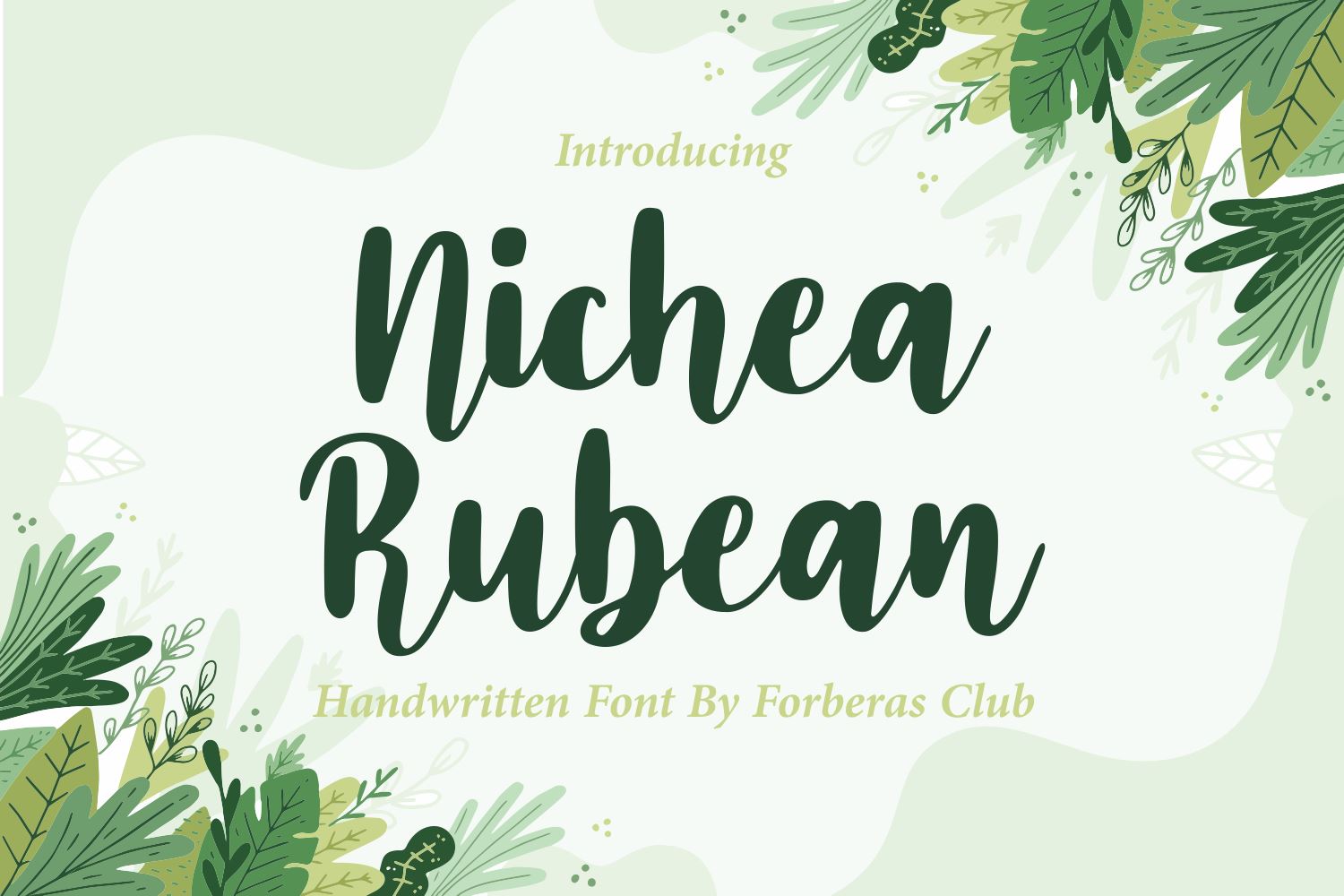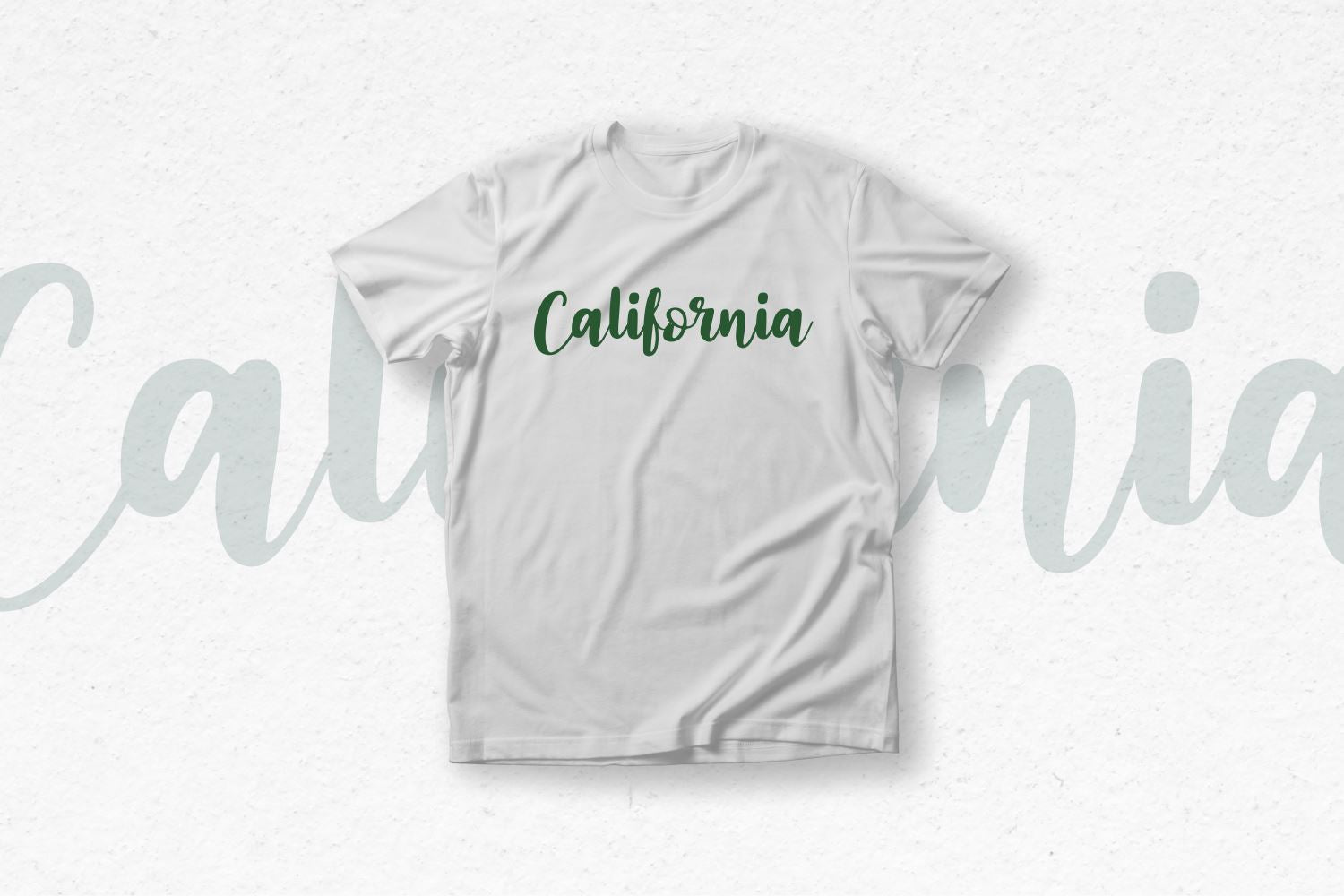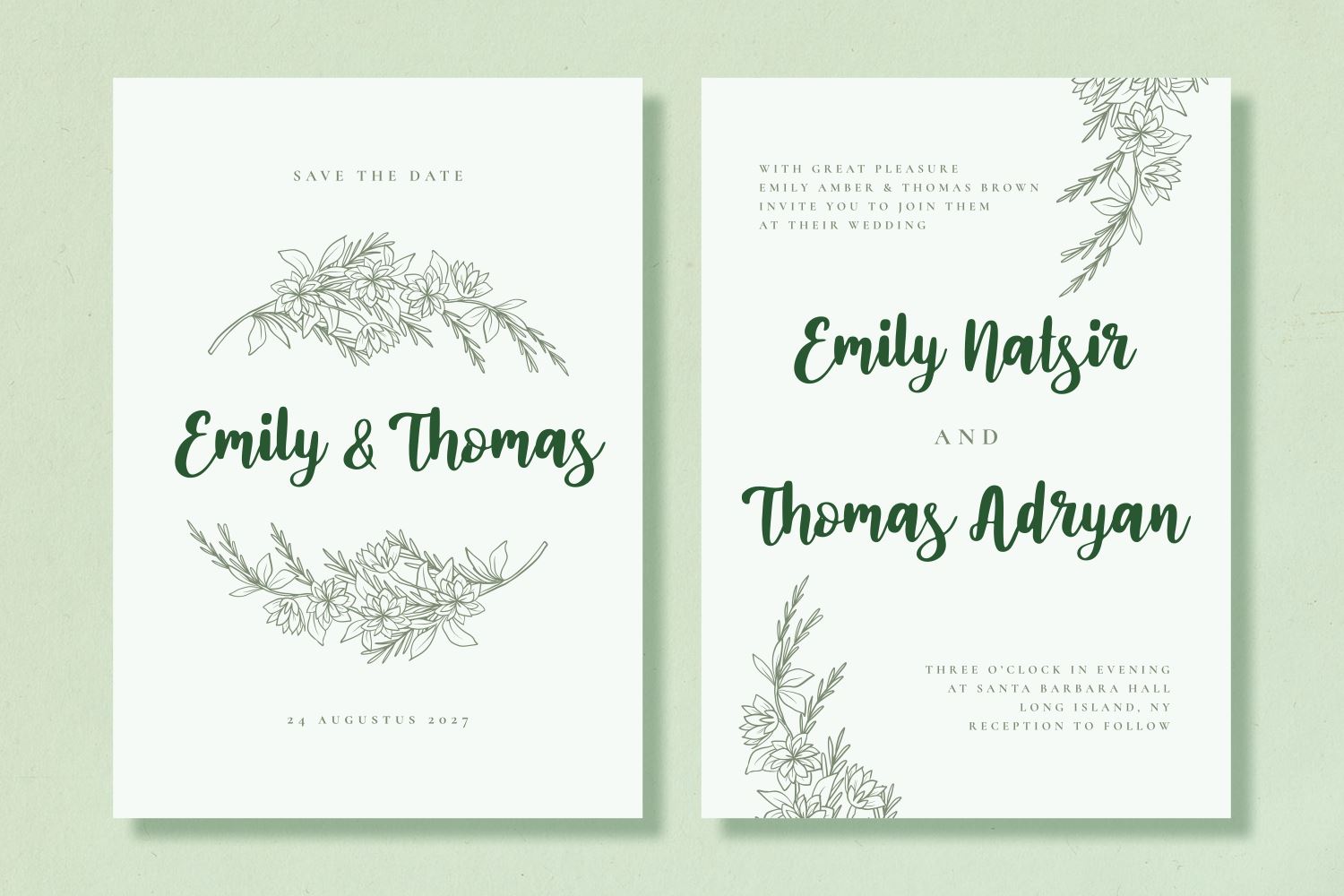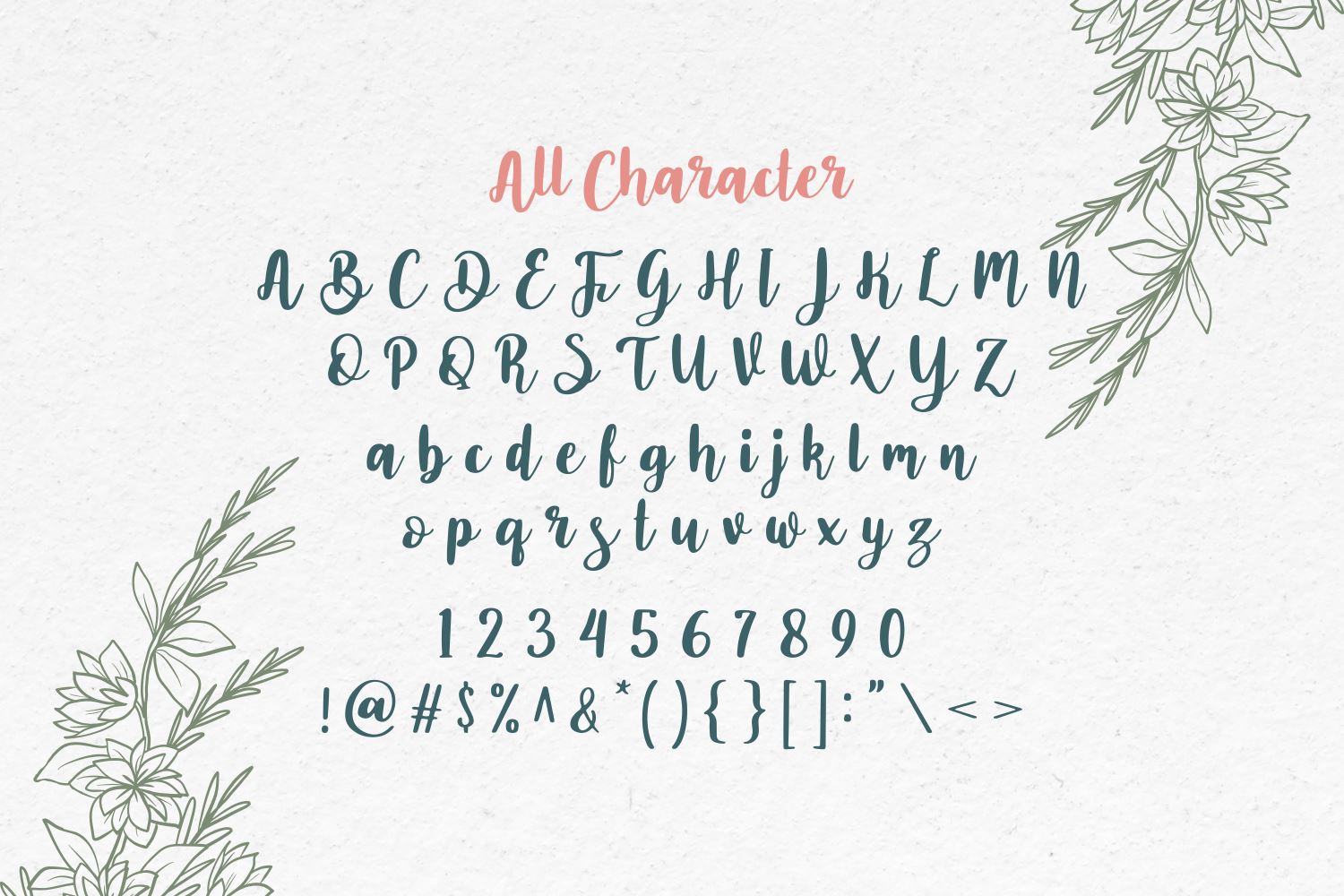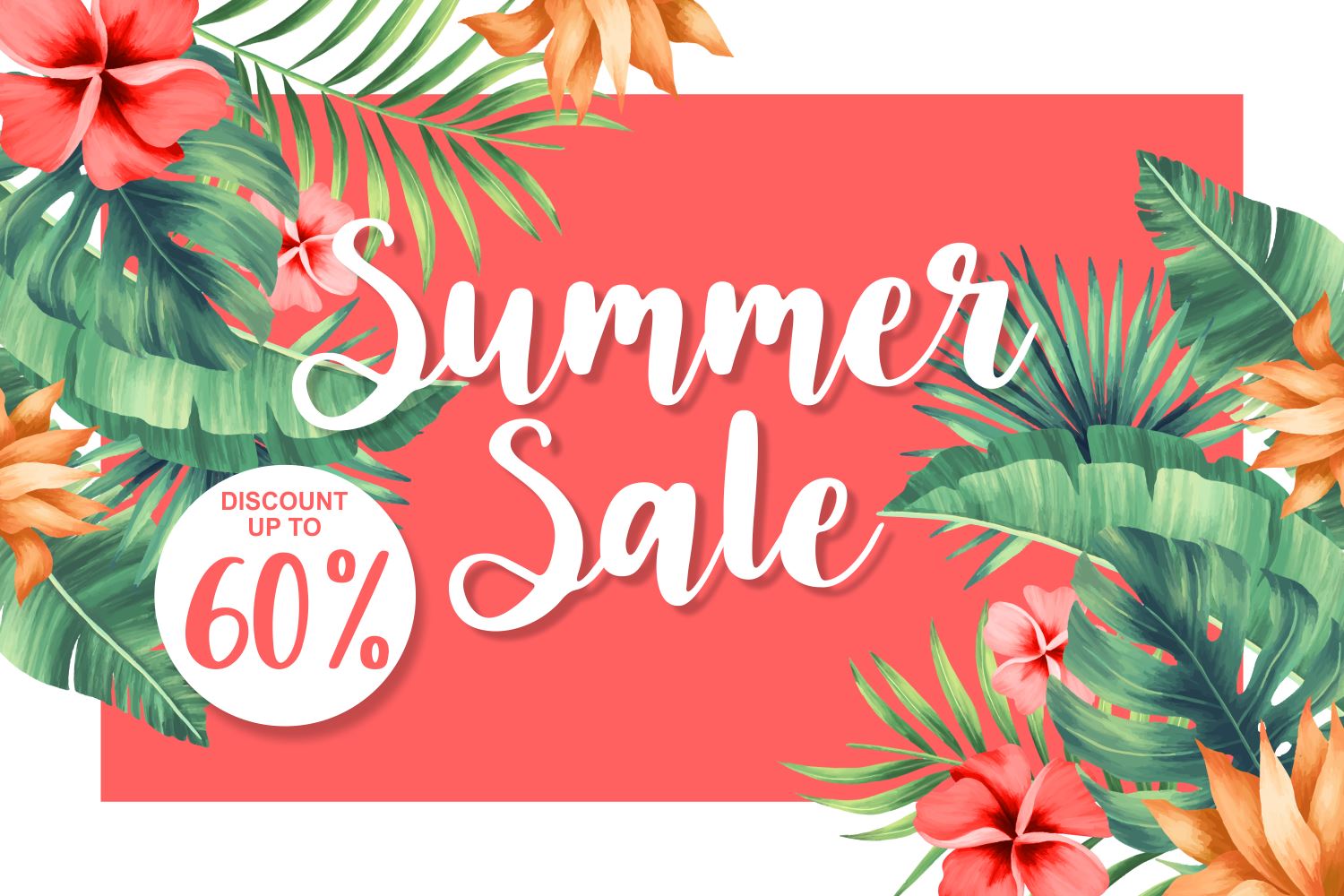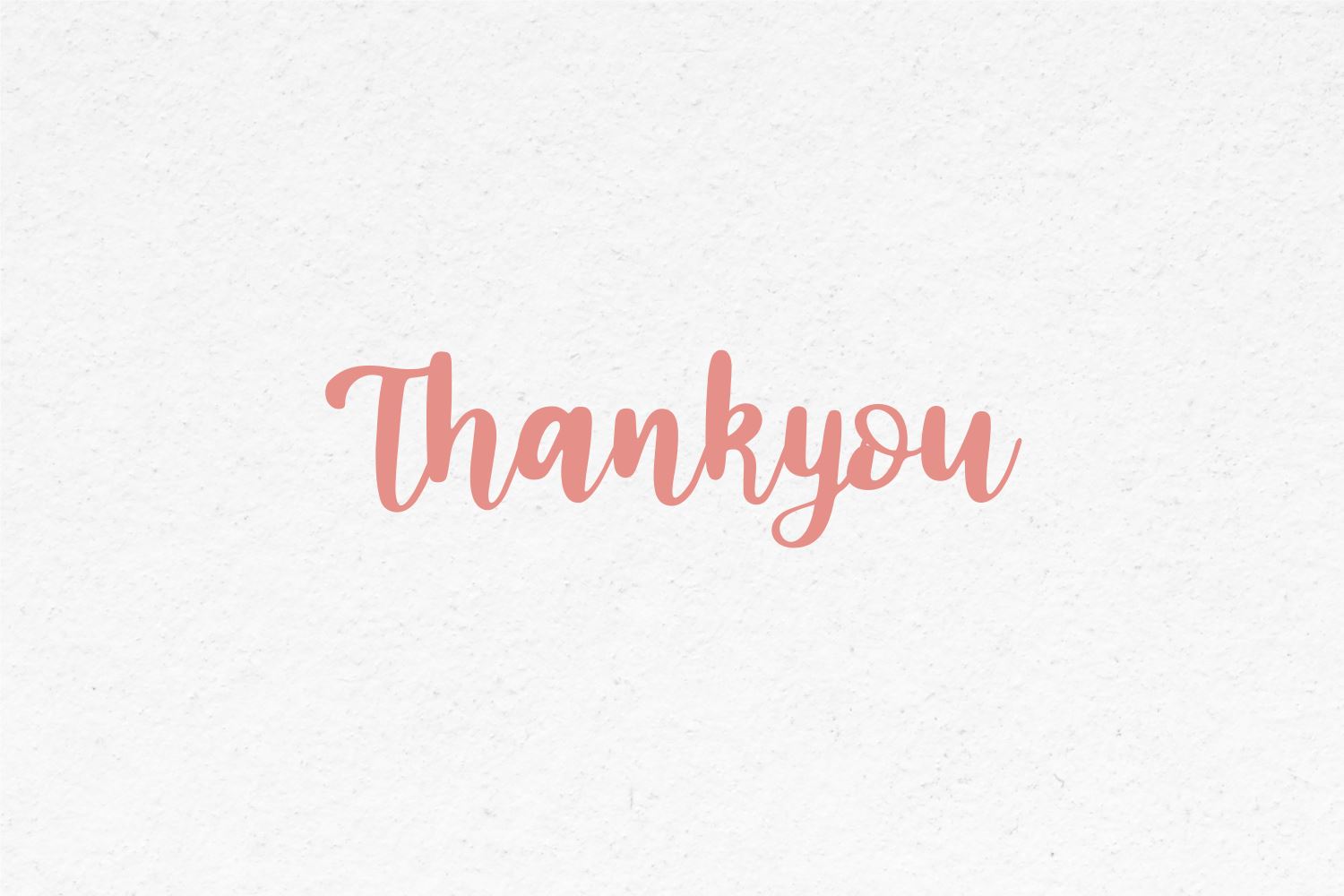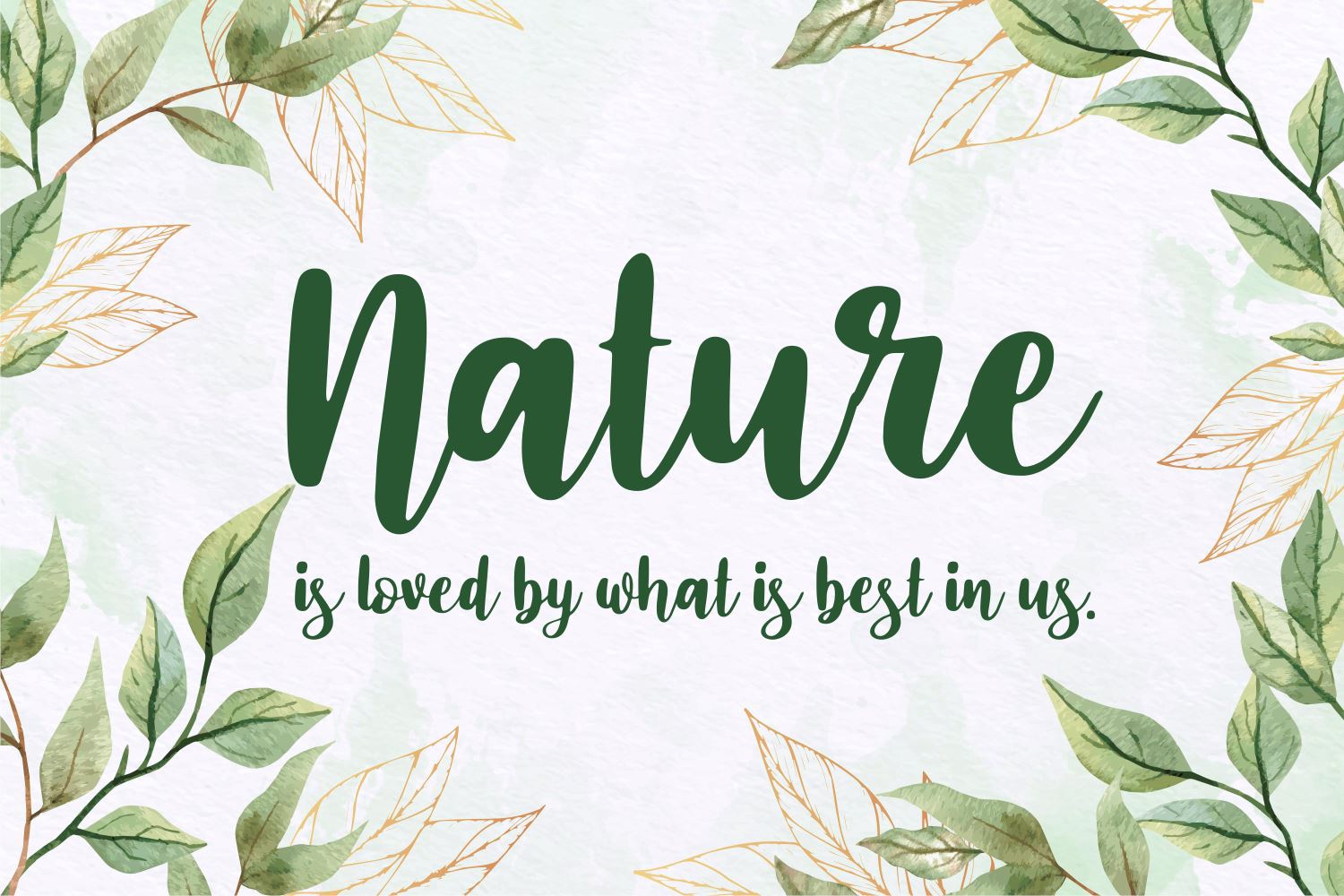
Nichea Rubean
Introducing Nichea Rubean Font by Forberas Club Nichea Rubean is a Modern Handwritten Font. Nichea Rubean is perfect for book cover, product packaging, branding project, megazine, social media, christmas party fonts, or just used to express words above the background. This font includes TTF and OTF, This font also multilingual support.